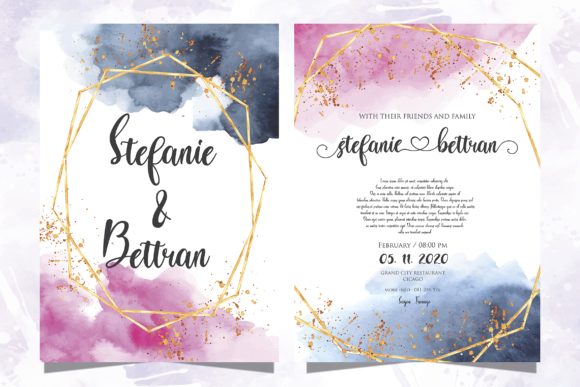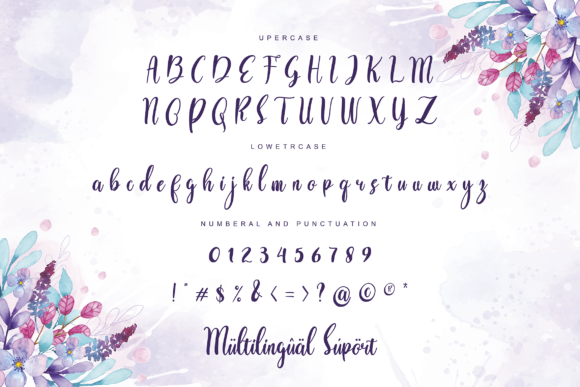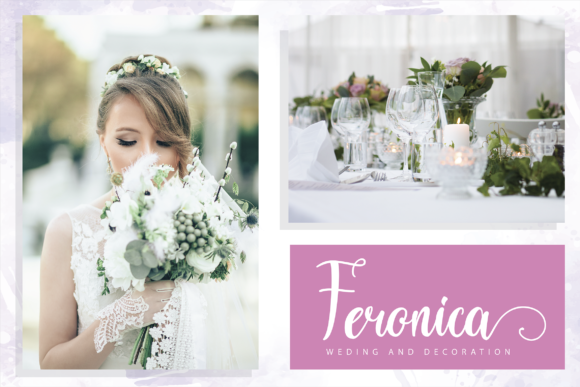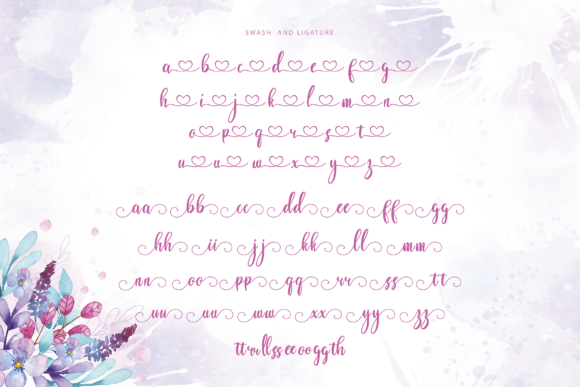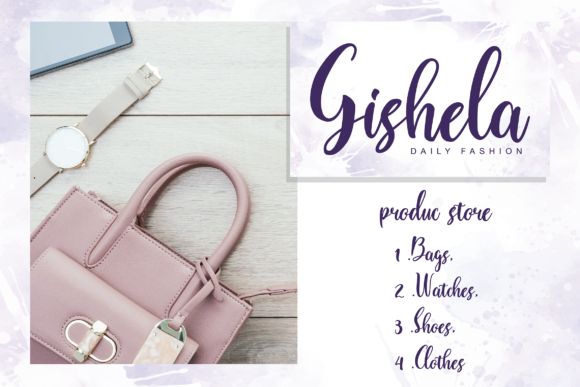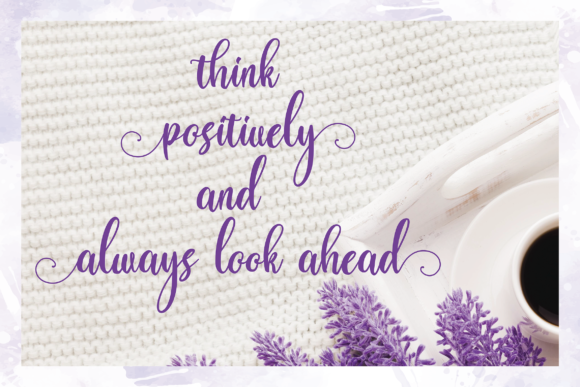
Introduction to Love Spring Font
As a designer, there’s nothing quite like the rush of inspiration that hits you in the middle of a creative project. You’re brainstorming ideas, pouring over design resources, and searching for the perfect font to bring your vision to life. And then, suddenly, you stumble upon it – the perfect combination of style, charm, and whimsy that makes your project truly special. For many designers, that font is the Love Spring Font, a sweet and endearing handwritten font that’s perfect for everything from wedding invitations to social media posts.
With its authentic feel and PUA encoded features, the Love Spring Font is a valuable resource for designers looking to add a touch of personality to their work. And the best part? It’s available for free download, making it a must-have for any creative project. Whether you’re working on a high-quality design or just need a fun and playful touch, the Love Spring Font is sure to deliver.
Key Features of Love Spring Font
- Unique, hand-drawn style adds a touch of elegance and sophistication to any design
- Perfect for use in greeting cards, invitations, and other creative projects where a romantic or whimsical feel is desired
Honest Review: Love Spring Font
I recently came across the Love Spring Font and was excited to give it a try. As a designer, I’m always on the lookout for high-quality design resources that can elevate my creative projects. The Love Spring Font did not disappoint!
- ✨ The font has a beautiful, hand-drawn feel that adds a touch of whimsy to any design.
- ✨ The transparent background makes it easy to layer and combine with other design elements.
While the Love Spring Font is a great addition to any designer’s toolkit, there are a few limitations to be aware of:
- ⚠️ The font is only available in a limited number of weights and styles, which may not be suitable for complex or multi-faceted designs.
- ⚠️ The font may not be suitable for use in small sizes or on low-resolution screens, as the details can become pixelated.
Overall, I was impressed with the Love Spring Font and would recommend it to designers looking for a high-quality, free design resource for their creative projects. With a little creativity and experimentation, this font can add a unique touch to even the most mundane designs.
The Love Spring Font is perfect for a wide range of creative projects, including wedding invitations, greeting cards, and social media graphics. It’s also great for designing logos, business cards, and other marketing materials.
For the best results, use the Love Spring Font with a high-quality design that complements its elegant and refined style. You can also experiment with different font sizes and colors to add more visual interest to your designs.
Is the Love Spring Font suitable for high-quality design projects?
Yes, the Love Spring Font is a high-quality design resource that can be used for a wide range of creative projects, from business cards and brochures to web design and branding. The font’s clear and elegant design makes it perfect for projects where a sophisticated and modern look is required.